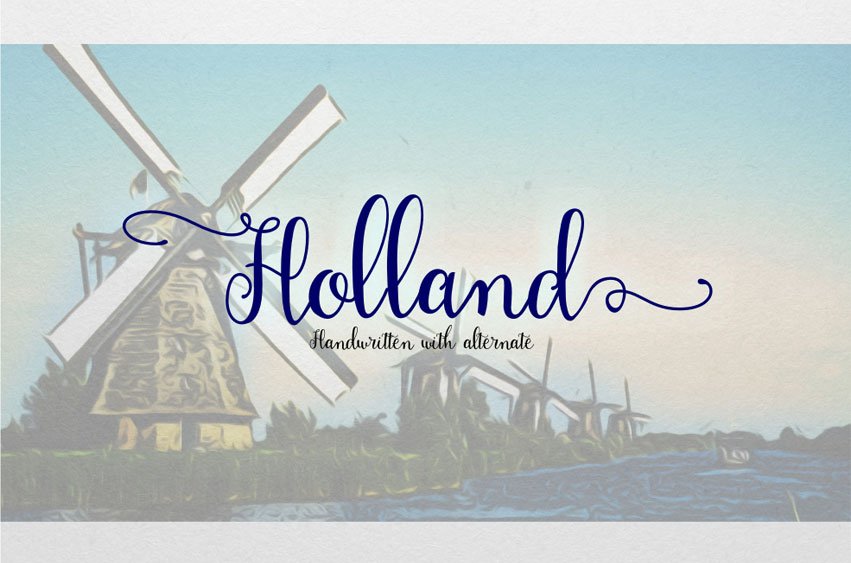
Holland Script Font is an exceptionally beautiful script handwriting font that is suitable mostly for creating wedding and invitation cards. The fonts can be described as delicate and stylish with a dancing baseline.
Aside from card design, Holland Script can be used in branding, editorial designs, and signage. The font has uppercase letters, lowercase letters, and some of the most used glyphs.